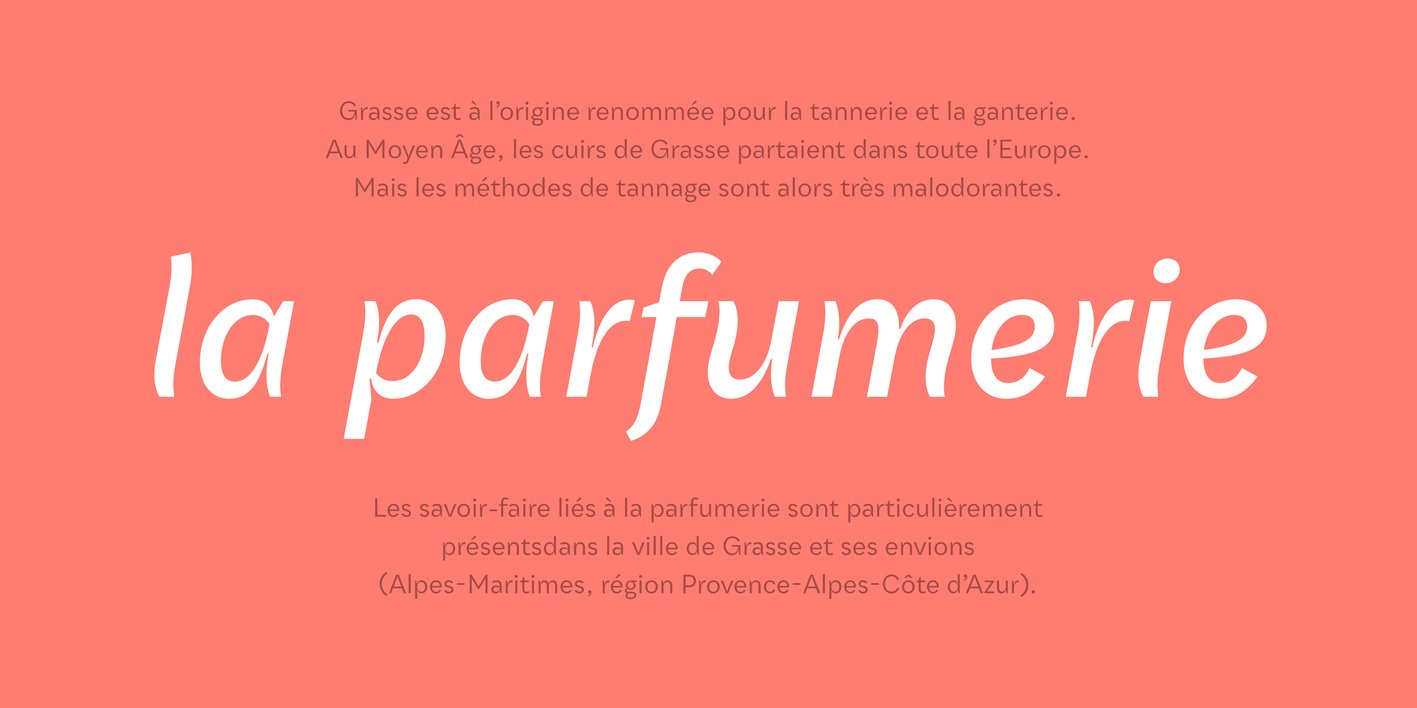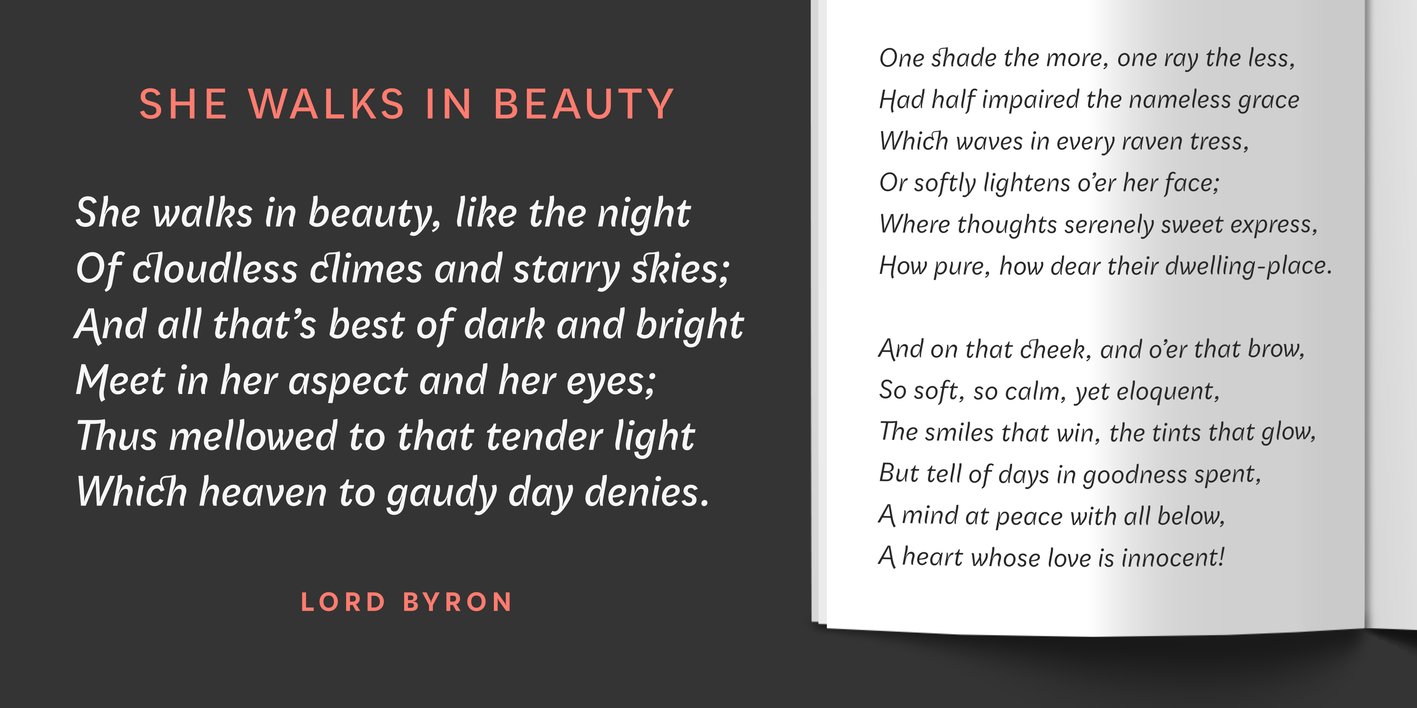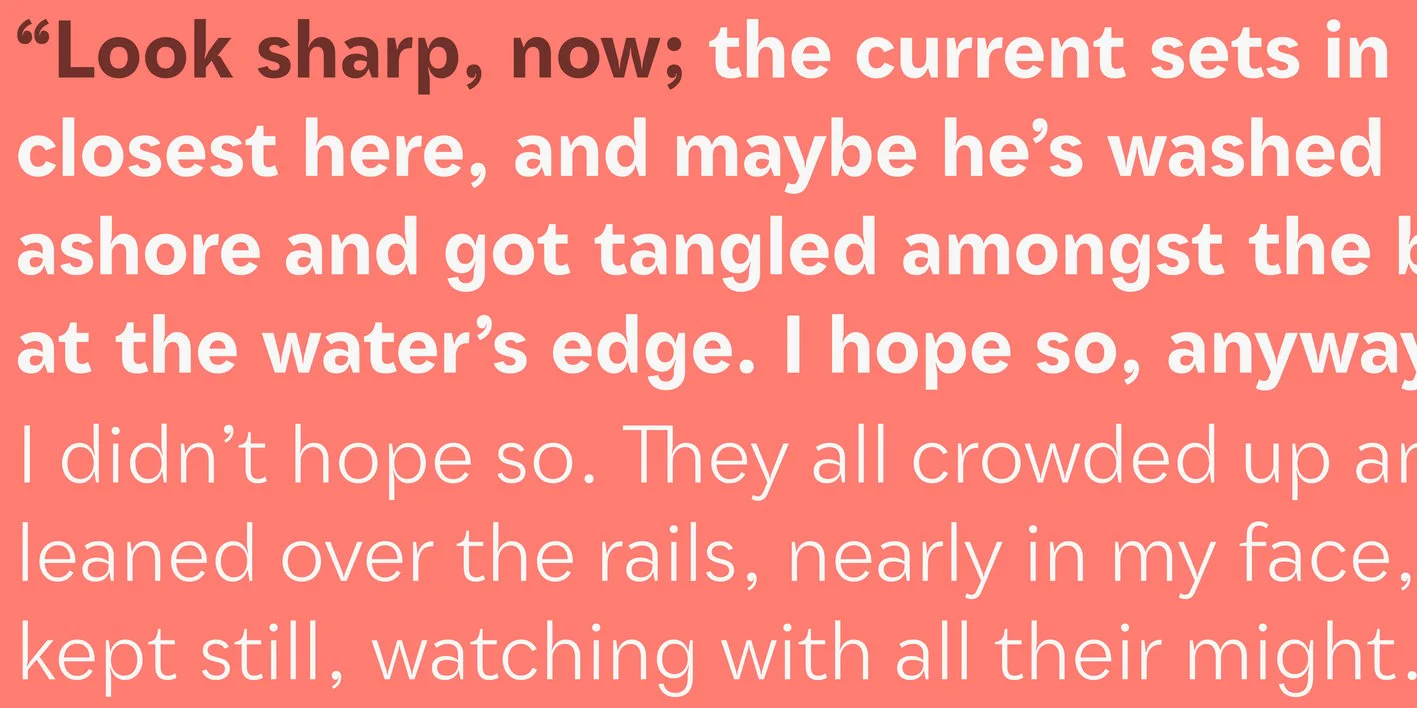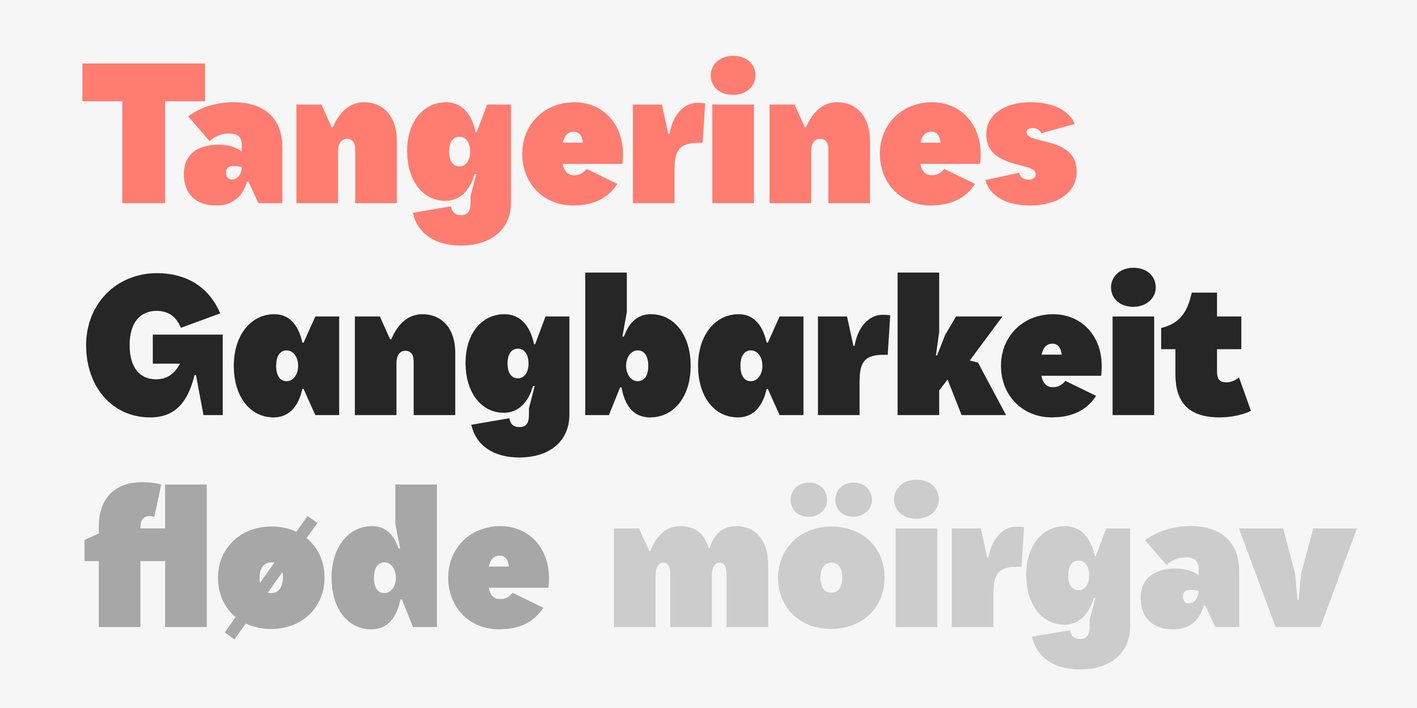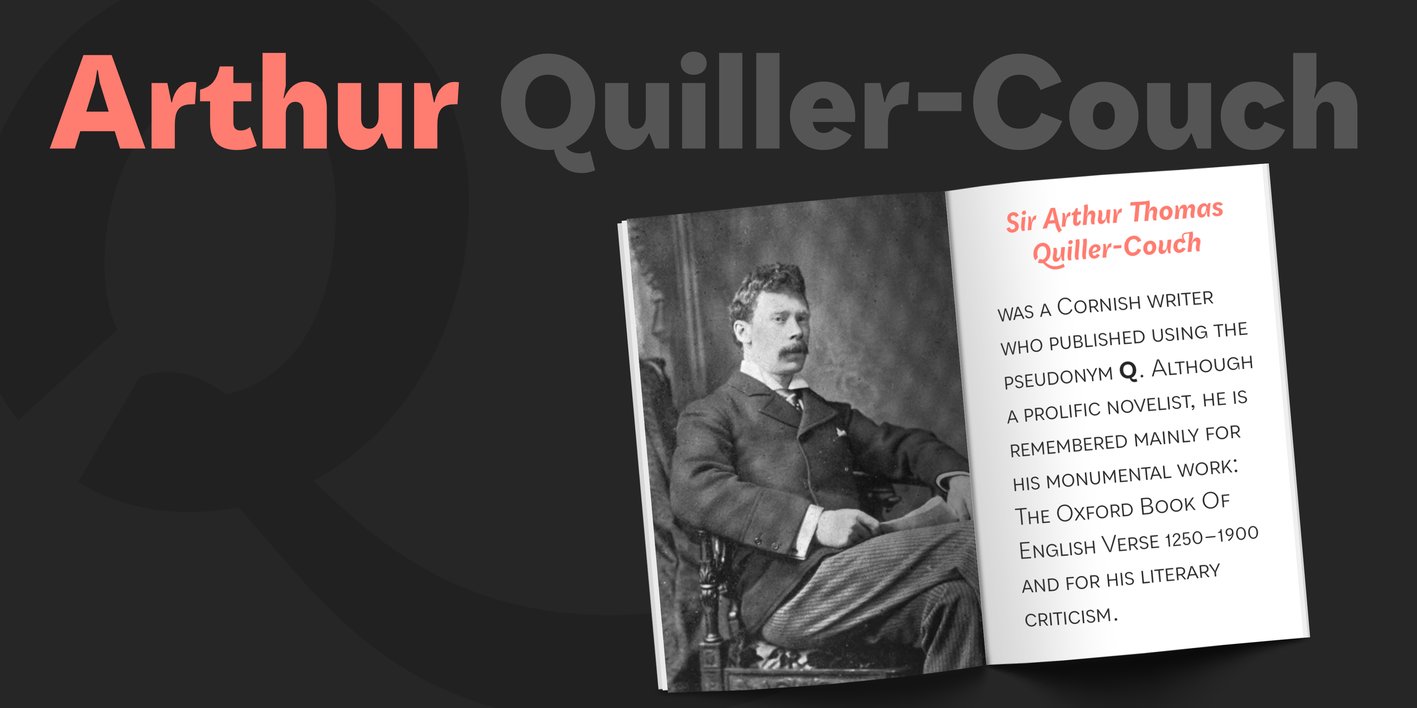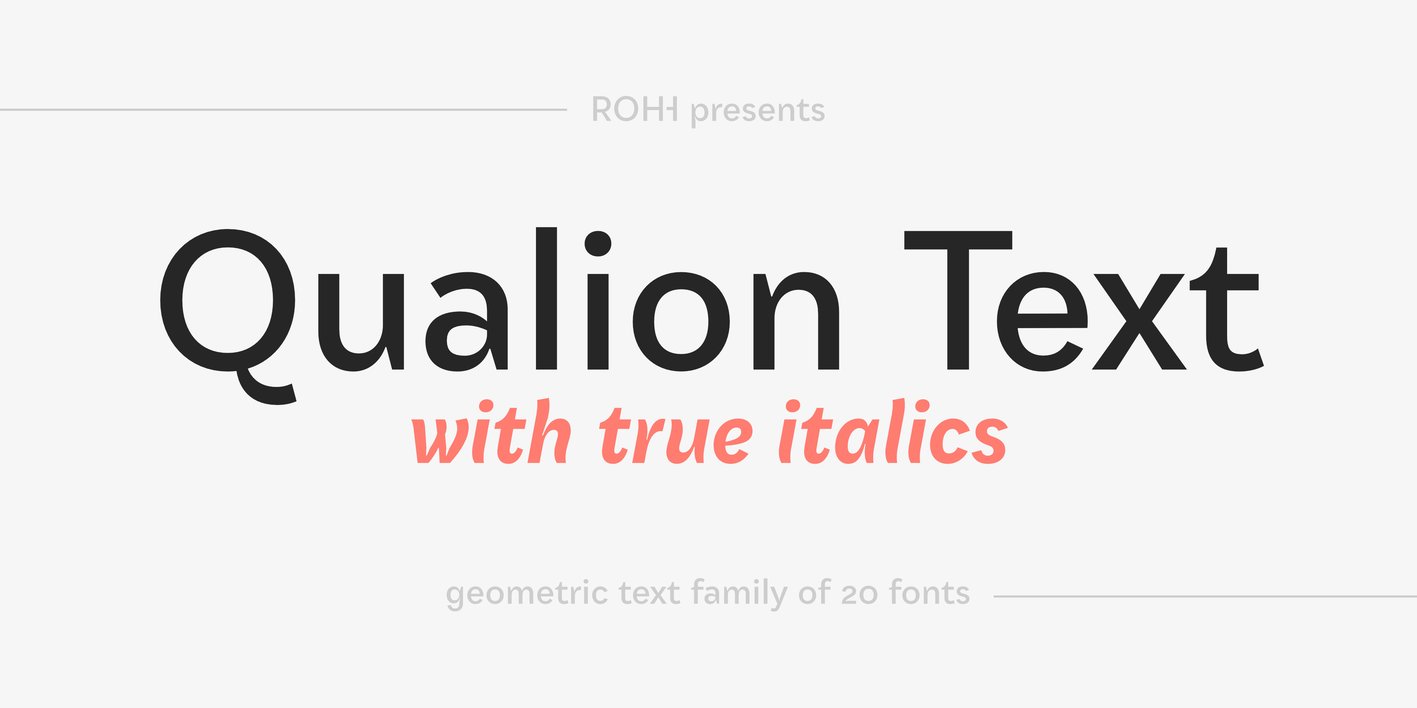
Qualion Text Font
Qualion Text Font excels in premium quality assurance documentation, excellence certification materials, luxury brand quality statements, professional standards publications, high-end manufacturing branding, precision engineering presentations, quality control system interfaces, premium service guarantee displays, excellence award ceremonies, and sophisticated quality management communications. This distinguished typeface brings quality excellence and professional standards to any precision-focused design project.
Qualion Text Font is exciting because it embodies the unwavering commitment to excellence and meticulous attention to detail that defines truly superior quality standards, featuring precisely crafted letterforms that convey the systematic rigor and professional dedication required to achieve and maintain the highest levels of quality in products, services, and organizational performance. Its quality character instantly establishes credibility, professional excellence, and uncompromising standards.
Qualion Text Font family includes comprehensive weight range from Light to Black with matching italics, plus quality-focused alternates, precision flourishes, excellence ornamental elements, and professional symbols that enhance the quality aesthetic, providing quality professionals with authoritative tools for creating typography that communicates excellence standards and quality assurance expertise.
Quality assurance designers appreciate Qualion Text Font for its exceptional clarity in technical documentation and its ability to convey quality excellence through systematically designed letterforms. The font's precision character and quality details create immediate associations with certification processes, excellence standards, and the professional discipline required to maintain consistent quality performance across complex organizational systems and manufacturing processes.
The design philosophy behind Qualion Text Font celebrates the fundamental importance of quality excellence and the professional dedication required to establish and maintain standards that ensure consistent performance, customer satisfaction, and organizational excellence, making it particularly effective for quality management organizations, certification bodies, and premium brands that prioritize excellence. Quality teams working on standards documentation find this font essential.
Whether used for quality certification programs, premium manufacturing communications, or excellence management systems, Qualion Text Font delivers the perfect synthesis of professional precision and quality authority. Its excellence appeal and standards authenticity make it an indispensable choice for organizations that maintain quality standards, promote excellence practices, and demonstrate the systematic commitment to quality that defines truly superior performance and professional reliability.